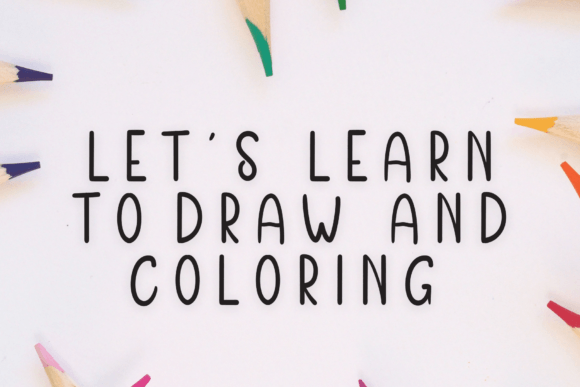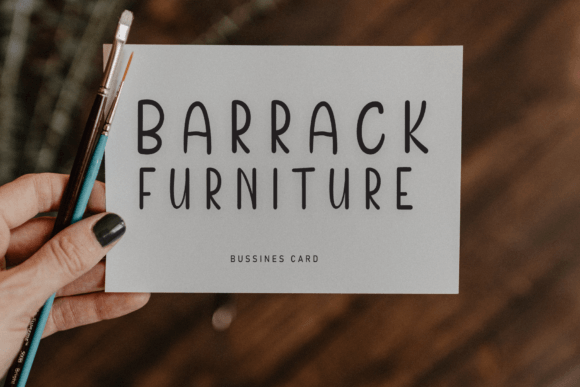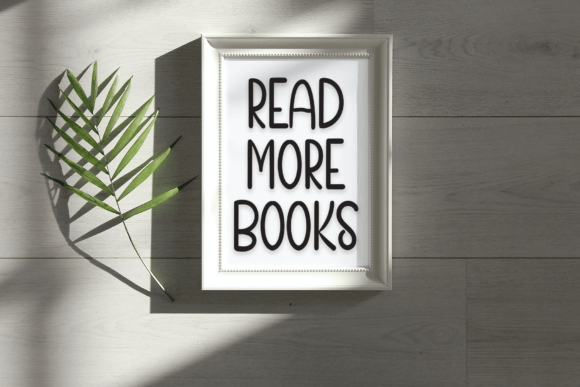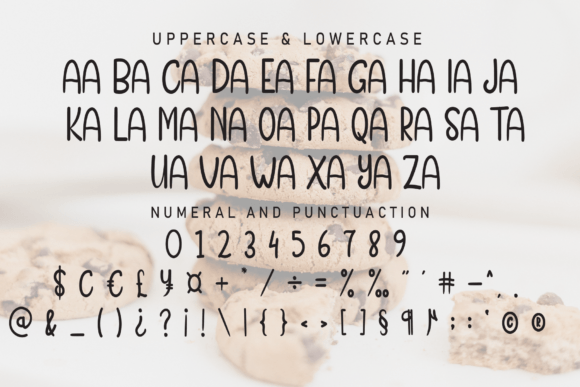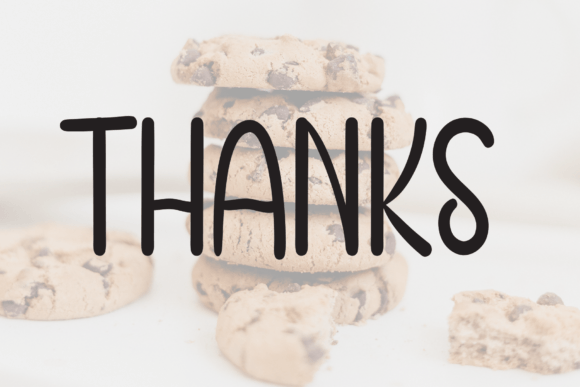
Introduction to Home Cake Font
Have you ever been stuck in front of your computer, staring blankly at a blank canvas, trying to decide on the perfect font for your next creative project? We’ve all been there – the cursor blinks, the clock ticks, and the pressure mounts. But then, like a breath of fresh air, you stumble upon the perfect font – and your entire design begins to come alive. For many designers, that font is the Home Cake Font, a sweet and friendly handwritten font that adds a touch of whimsy to any design.
With its fresh and neat style, the Home Cake Font is a valuable resource for designers looking to add a fun touch to their projects. Whether you’re creating wedding invitations, cards, or any other design that needs a little extra love, this font is sure to deliver. Plus, with a transparent background and high-quality design, you can trust that your final product will be nothing short of amazing.
Key Features of Home Cake Font
- High-quality design resource with a modern and playful aesthetic, perfect for creative projects.
- Includes a transparent background option, allowing for easy customization and flexibility in design.
- High-resolution design, ensuring crisp and clear text display even at large sizes.
- Unique characteristics include a mix of bold and cursive elements, creating a visually appealing and dynamic feel.
- Perfect for designing invitations, party decorations, and other creative projects that require a sweet and festive touch.
Honest Review: Home Cake Font
- Super versatile and can be used for various creative projects
- High quality and crisp design makes it perfect for professional use
Home Cake Font
Use Home Cake Font as a design resource for your creative project. With its high-quality design and transparent background, you can easily combine it with other design elements to create a unique and eye-catching visual effect. You can also use it as a free download to add a personal touch to your designs.
Home Cake Font is perfect for baking-themed designs, food blogs, and social media graphics. You can also use it for wedding invitations, birthday party decorations, and other creative projects that require a playful and whimsical touch.